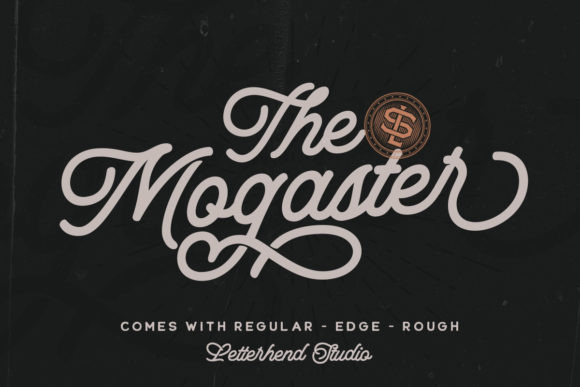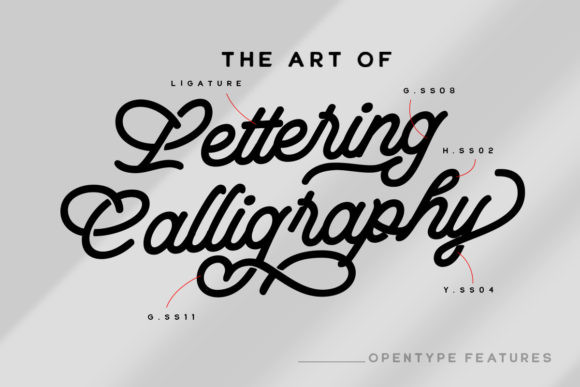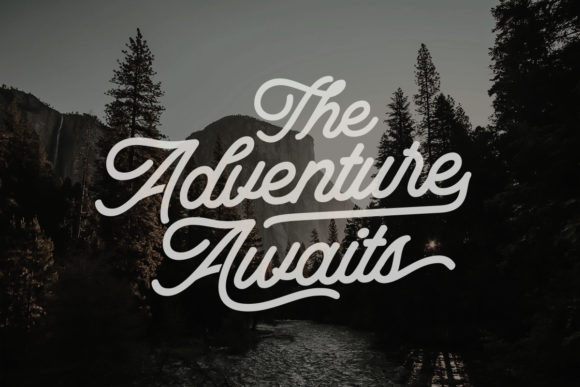
The Mogaster Font
The Mogaster is a unique and elegant handwritten font. It looks beautiful on a variety of designs requiring a personalized style, such as wedding invitations, thank you cards, weddings, greeting cards, logos and so on.